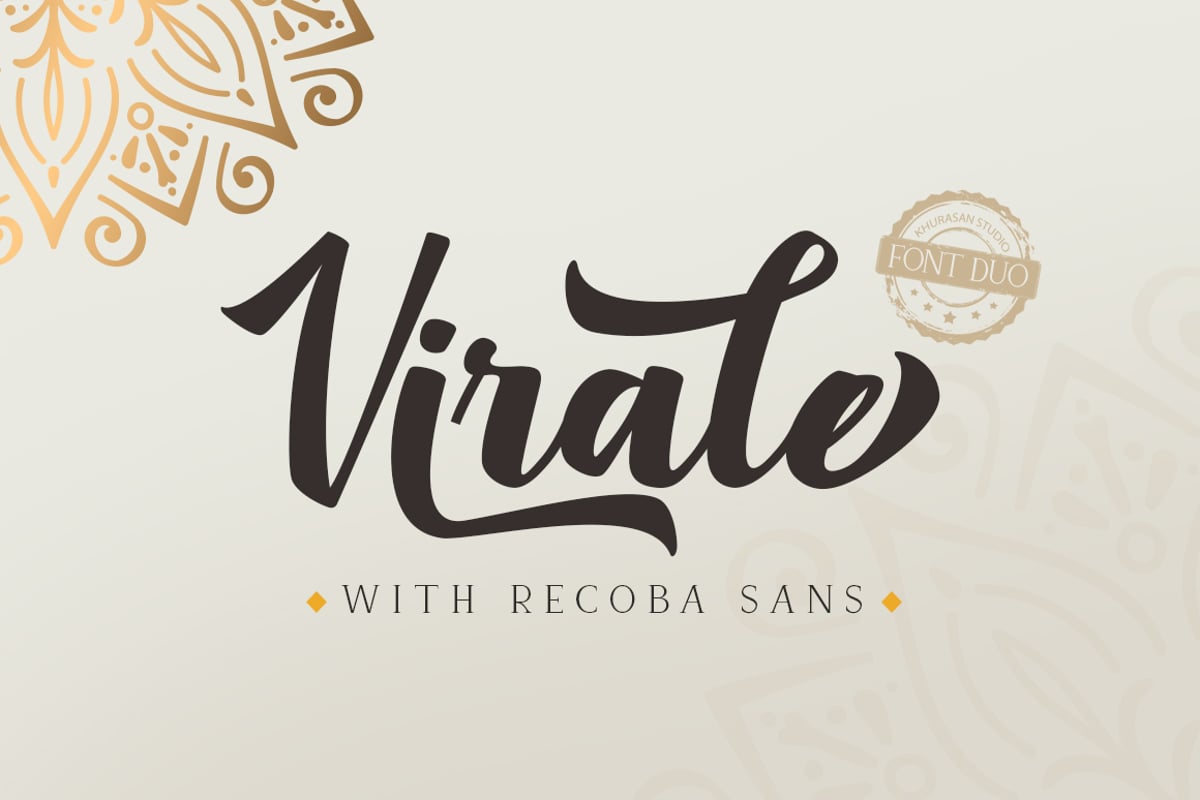
Virale Recoba Font Duos
Create stunning designs with this versatile script and sans serif font duo featuring fresh modern styling. The Virale Font brings a fun, contemporary script style paired perfectly with the clean Recoba Sans typeface. This dynamic combination allows you to mix script elegance with sans serif simplicity to achieve amazing design results. Perfect applications include: Logo and branding projects Wedding invitations and save the dates Greeting cards and stationery Posters and promotional materials An...